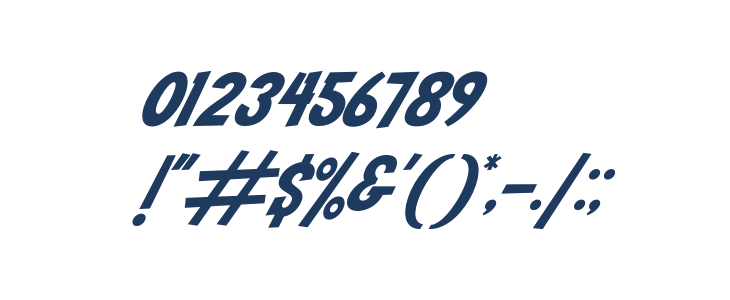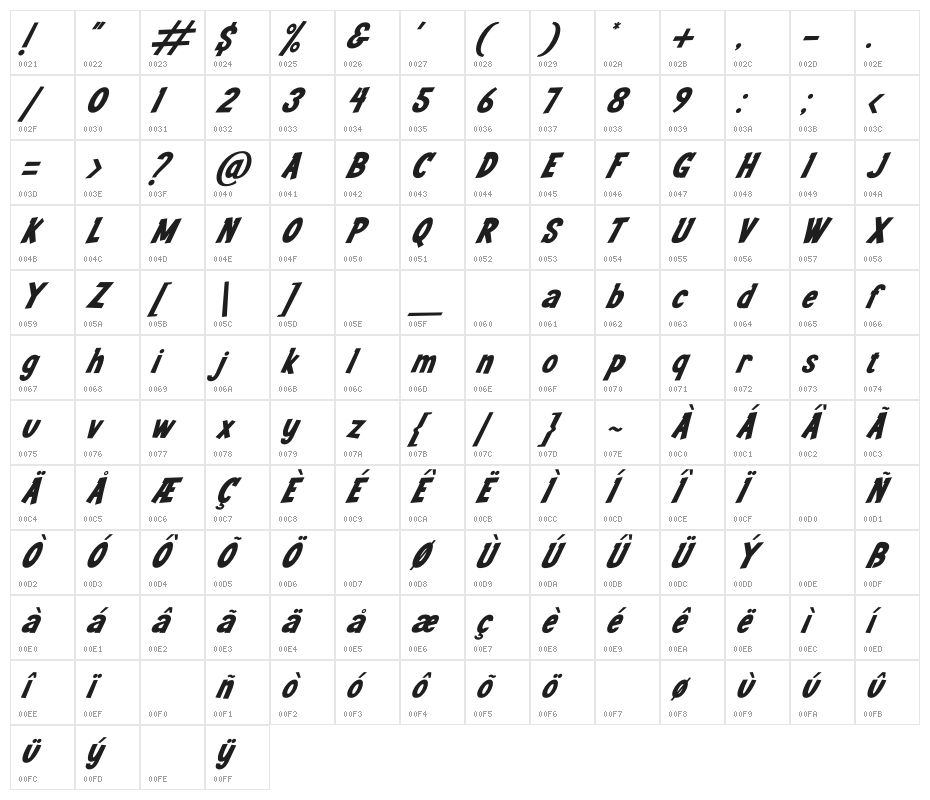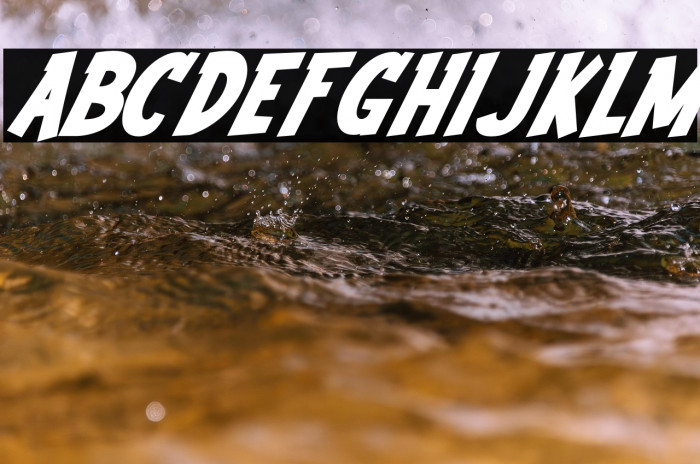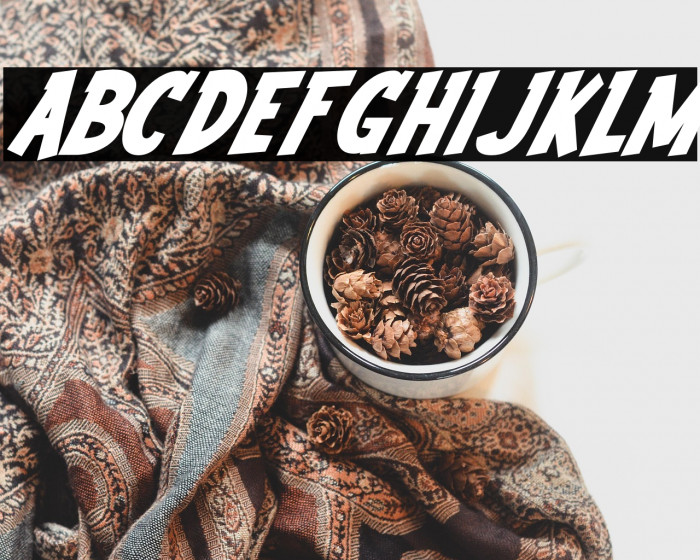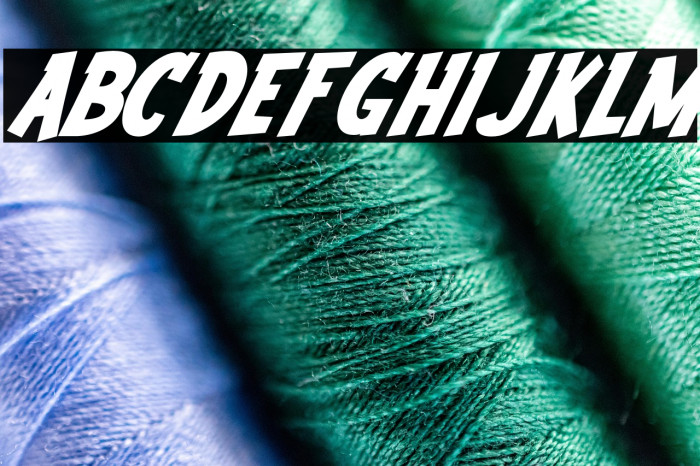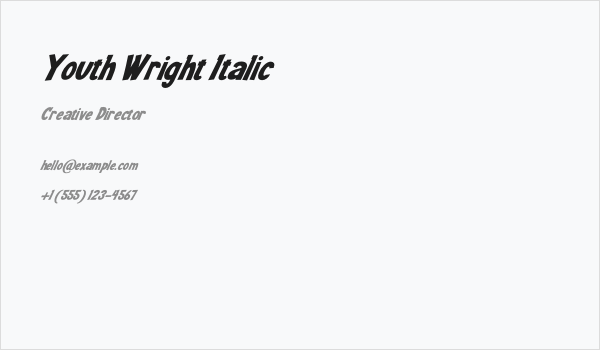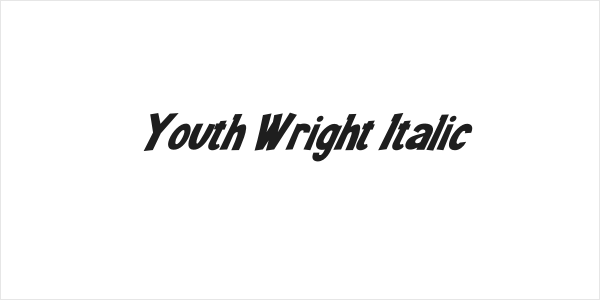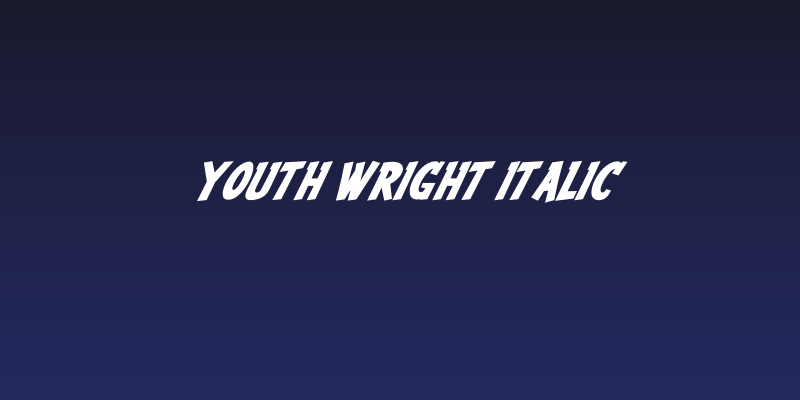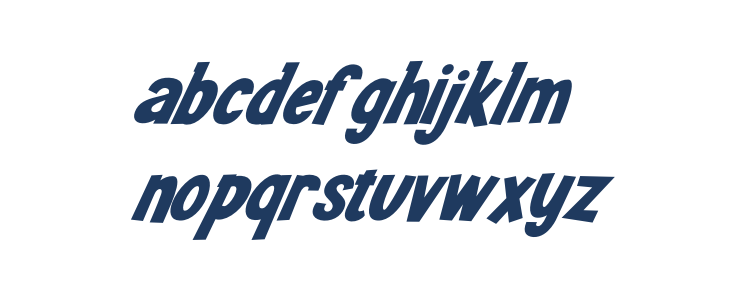
Youth Wright Italic Font
Youth Wright Italic Description
This font features a bold and dynamic italic style with a strong presence. The characters are slanted, giving a sense of motion and energy. The strokes are thick and consistent, providing a robust and impactful appearance. The uppercase and lowercase letters maintain a cohesive style, with rounded edges and a slight forward tilt. Numbers and special characters are designed to match the overall aesthetic, ensuring uniformity across all glyphs. This font is ideal for making a statement, with its bold and energetic design.